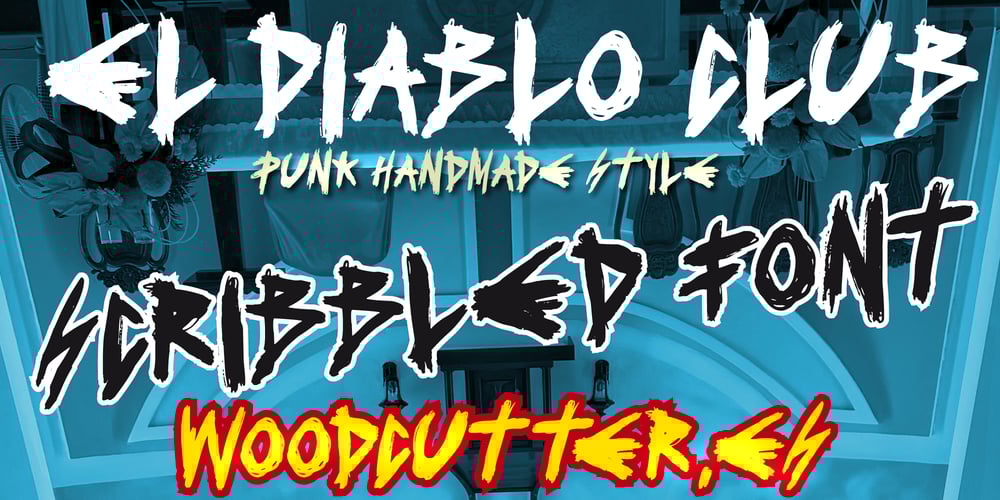
El Diablo Club
El Diablo Club font
El Diablo Club Font Family was designed by Jordi Manero and published by Woodcutter. El Diablo Club contains 1 styles and family package options. “El Diablo Club” is an uppercase font with a scribbled, handmade style that conveys a rugged and authentic character. The letters are outlined with irregular, scratched strokes, adding a touch of controlled chaos and urban aesthetics. This font, with its imperfect details, is ideal for alternative designs or projects that seek a rebellious and distinctive vibe. It also includes accents, enhancing its functionality for multiple languages. “El Diablo Club” is perfect for eye-catching posters, underground illustrations, and any piece needing to convey strength and originality.